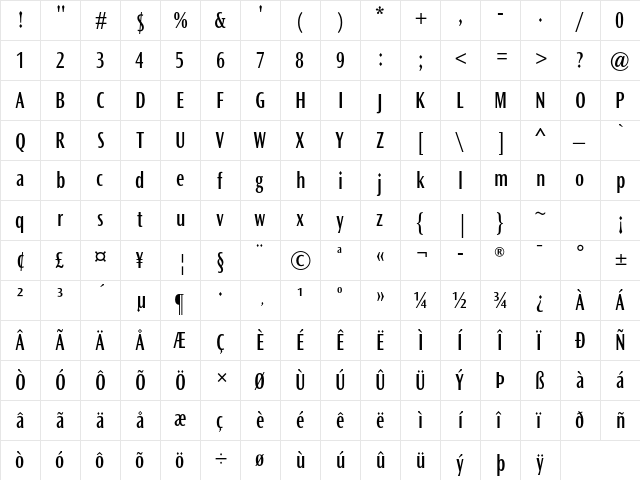
Ocean Sans MT Pro SemiBold Cond
| Designer | ChongWah |
Design Context for Ocean Sans MT Pro Typeface
Ocean Sans MT Pro is a composed and adaptable typeface that performs quietly and consistently across a wide range of design contexts. The heavy weight commands attention and anchors typographic hierarchies. Its narrow stance lets it pack a punch even in space-constrained designs.